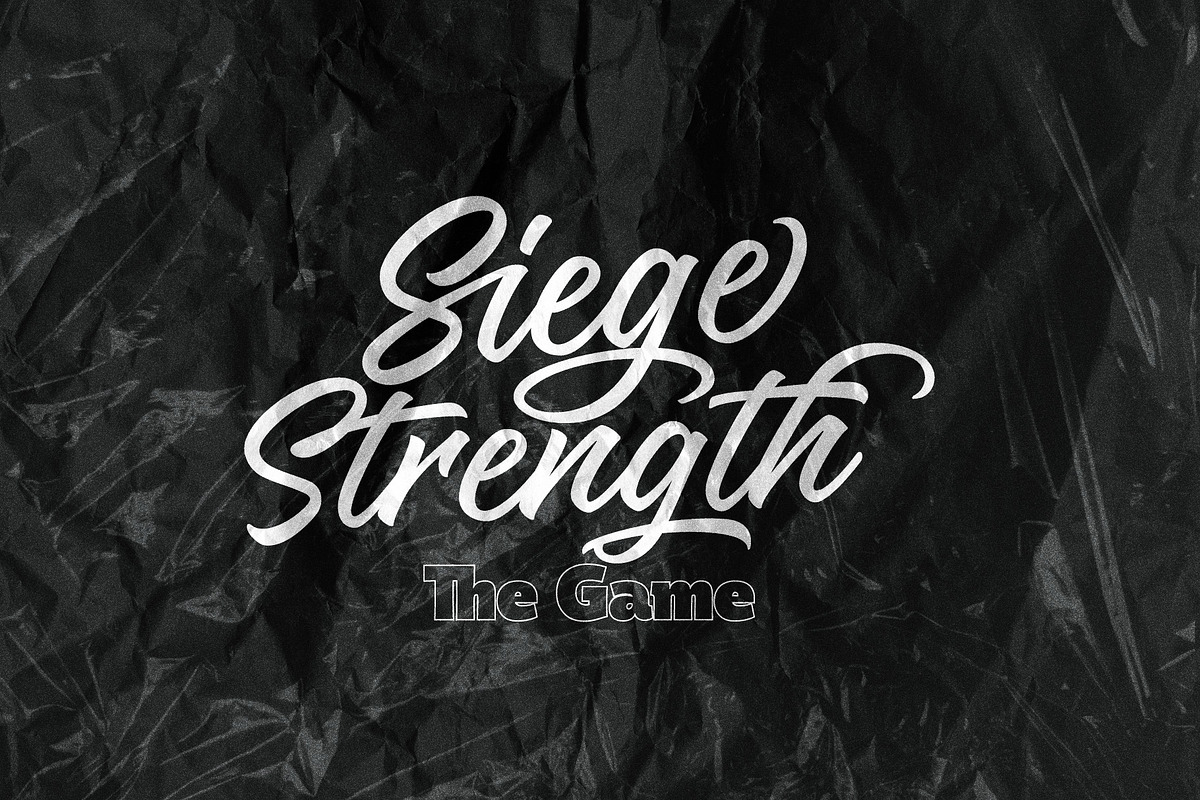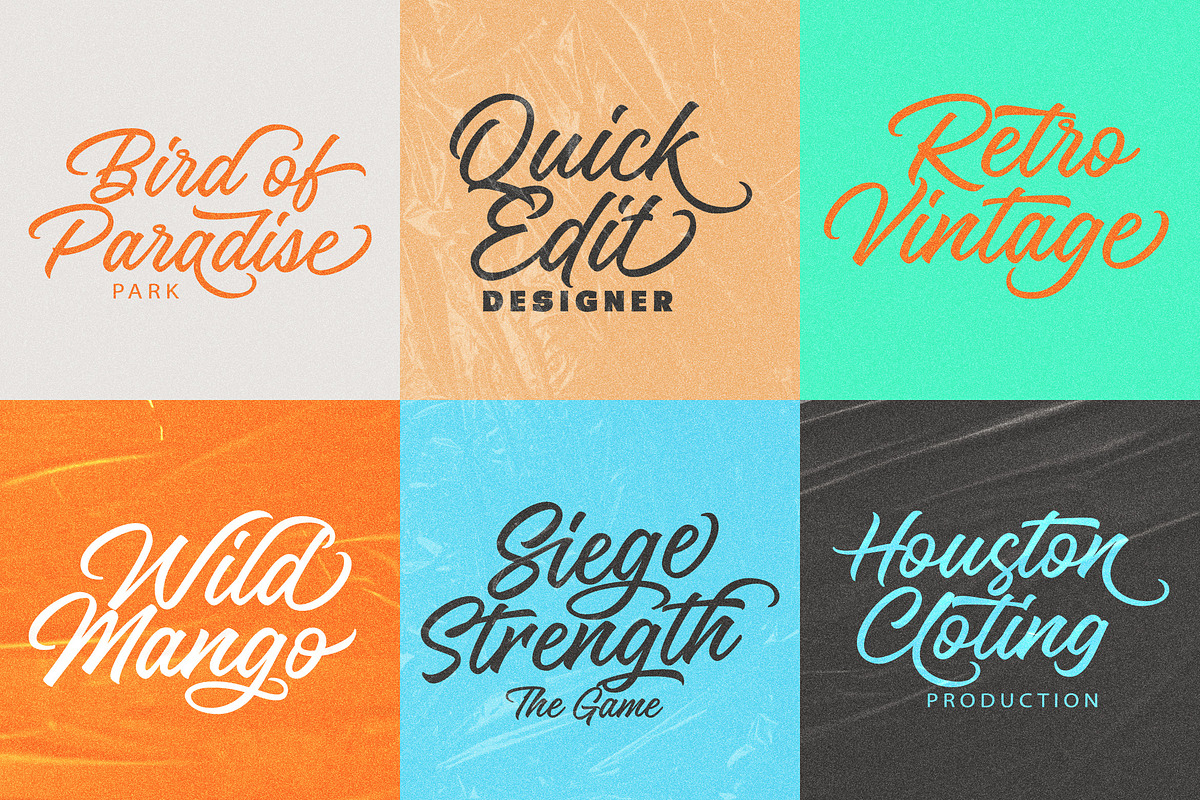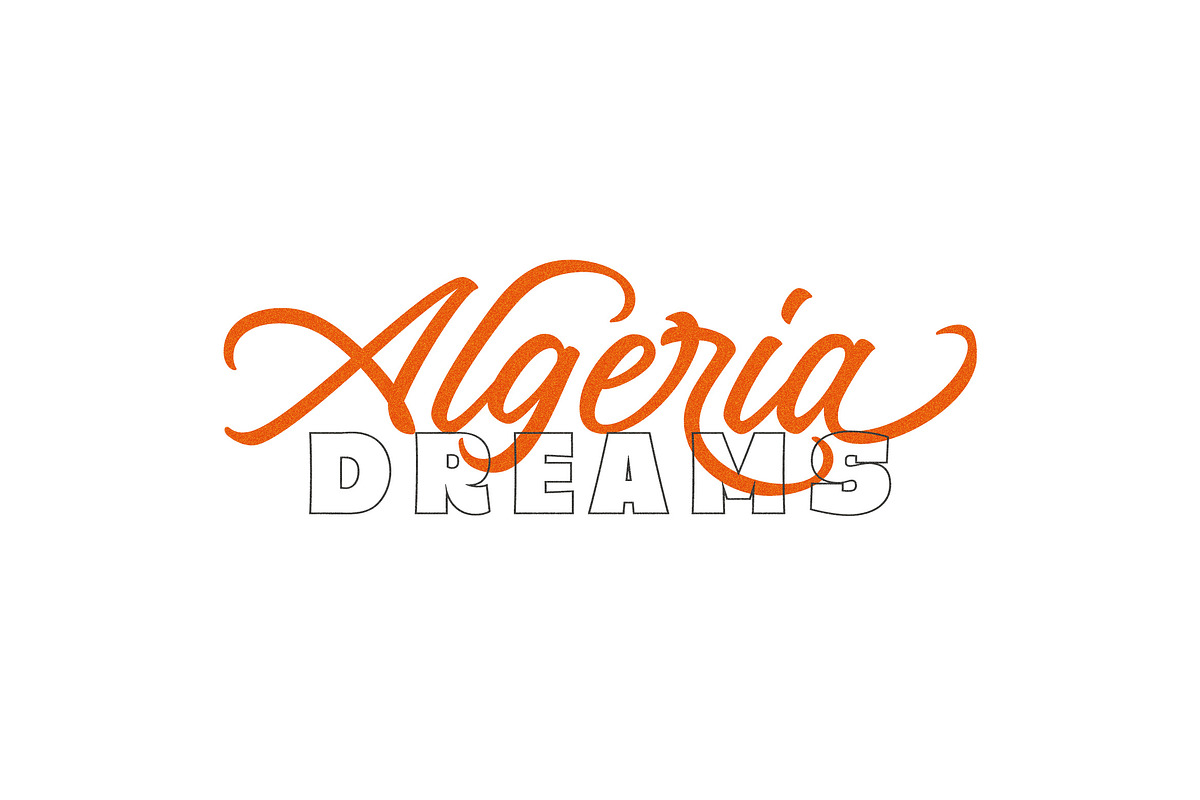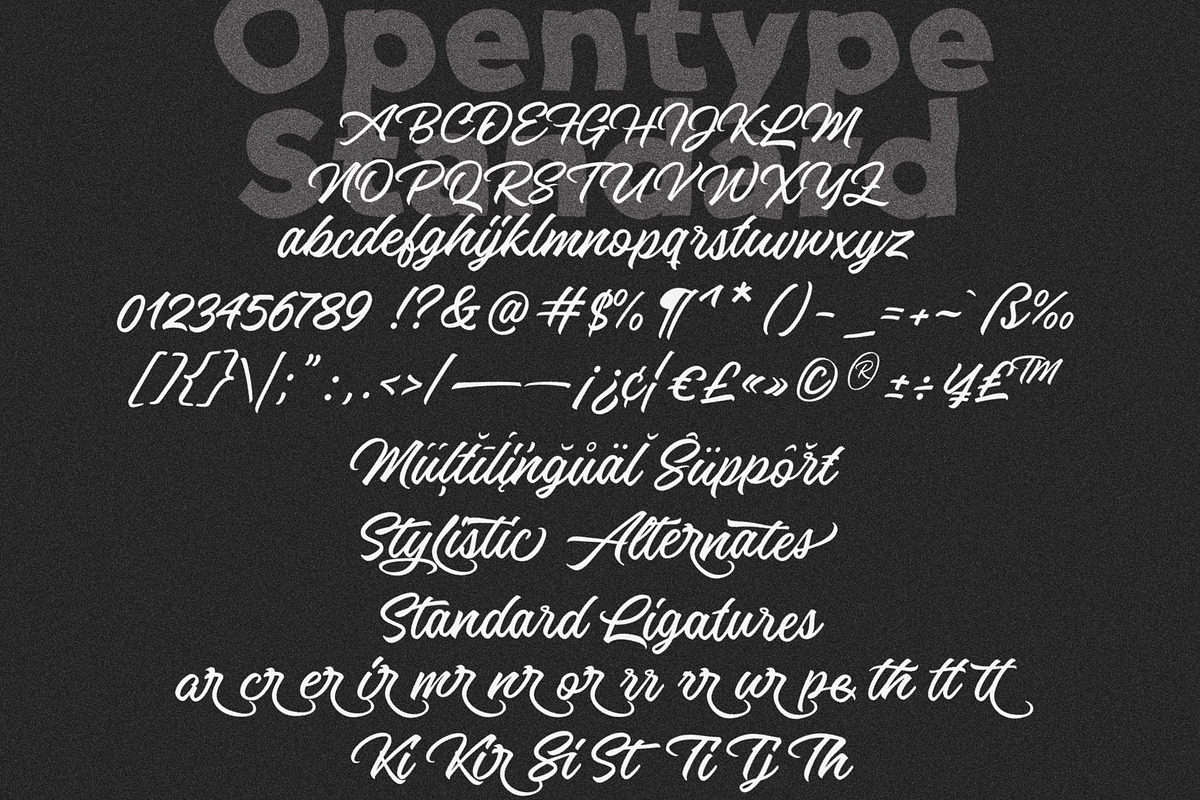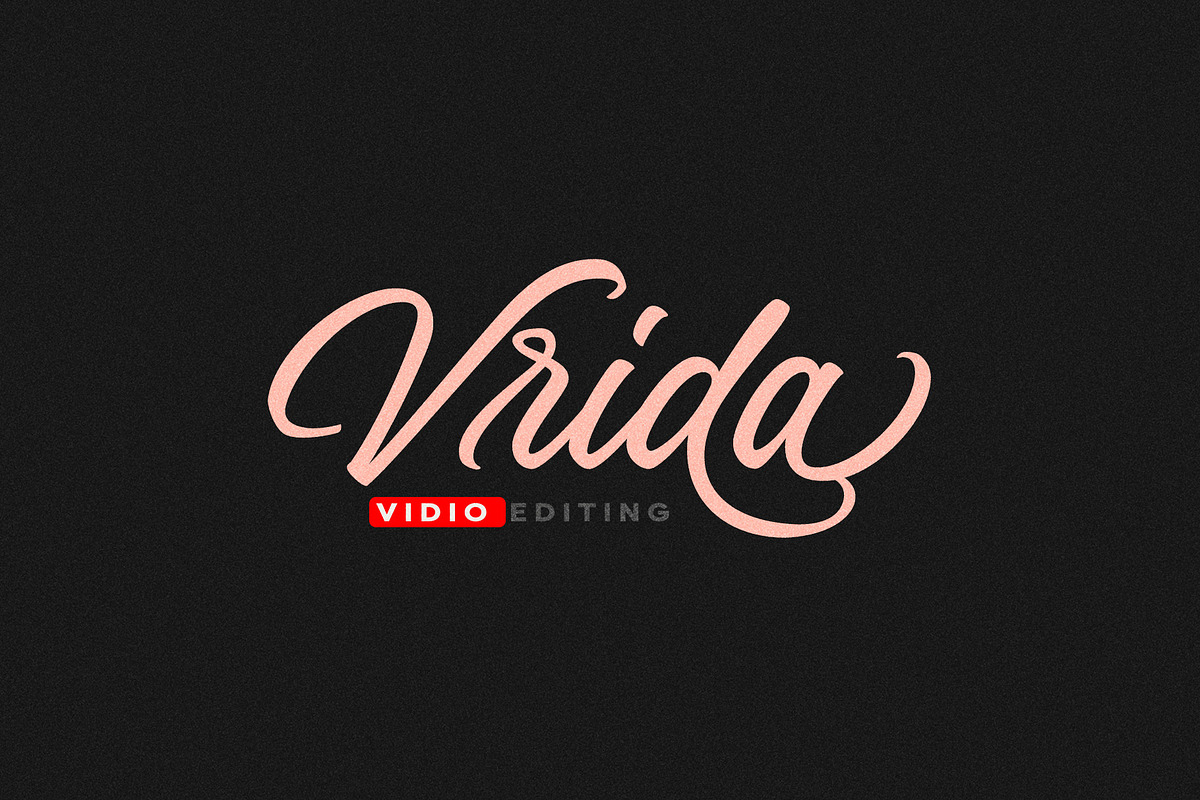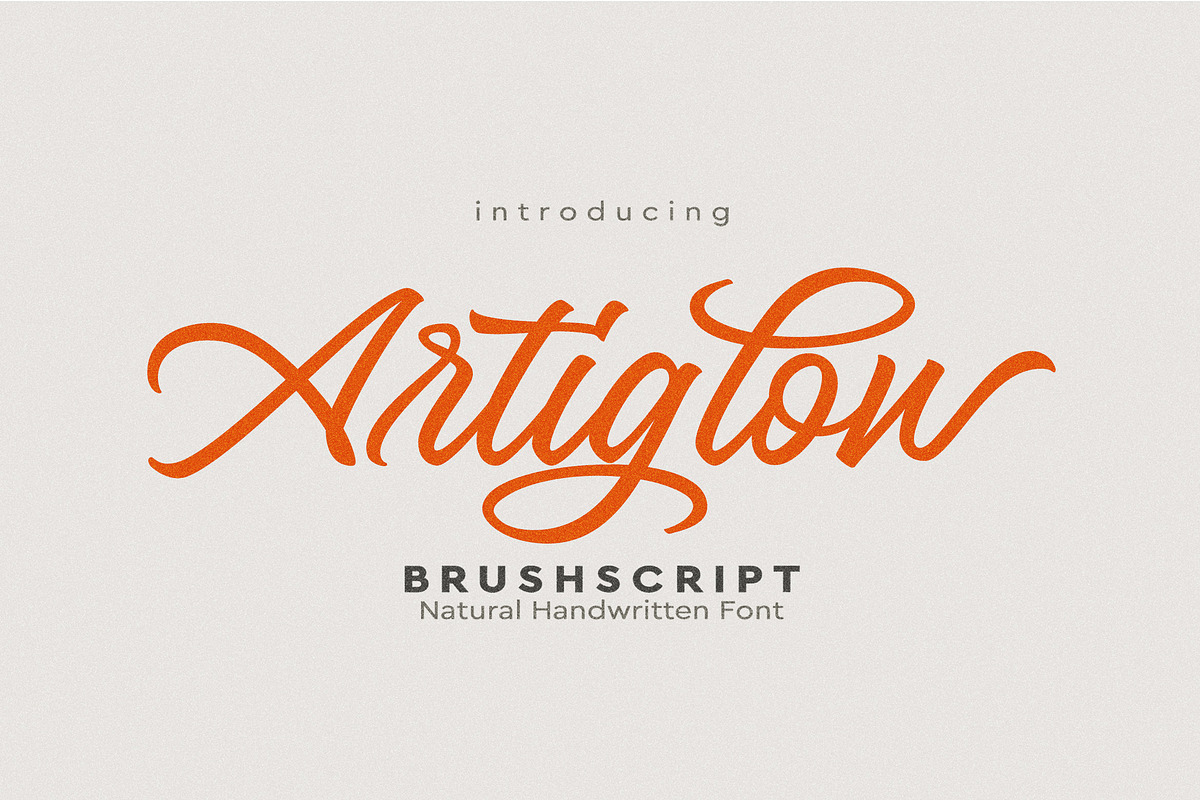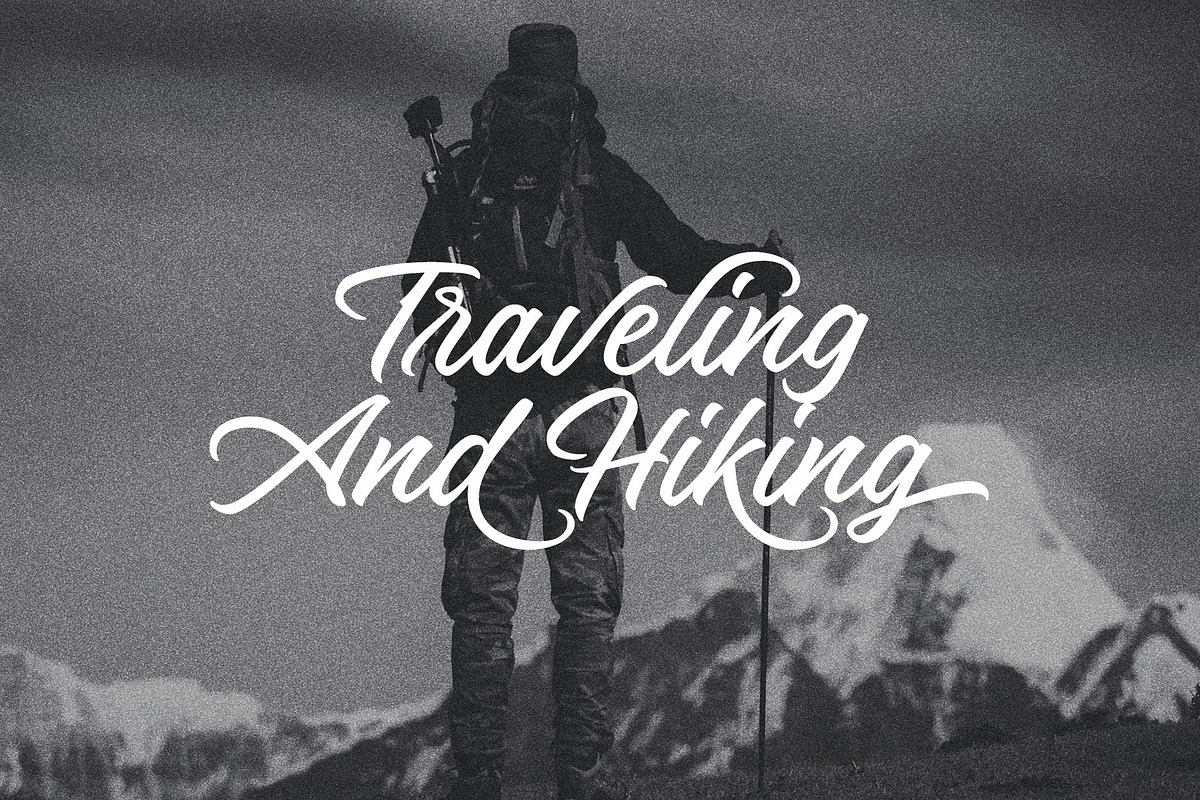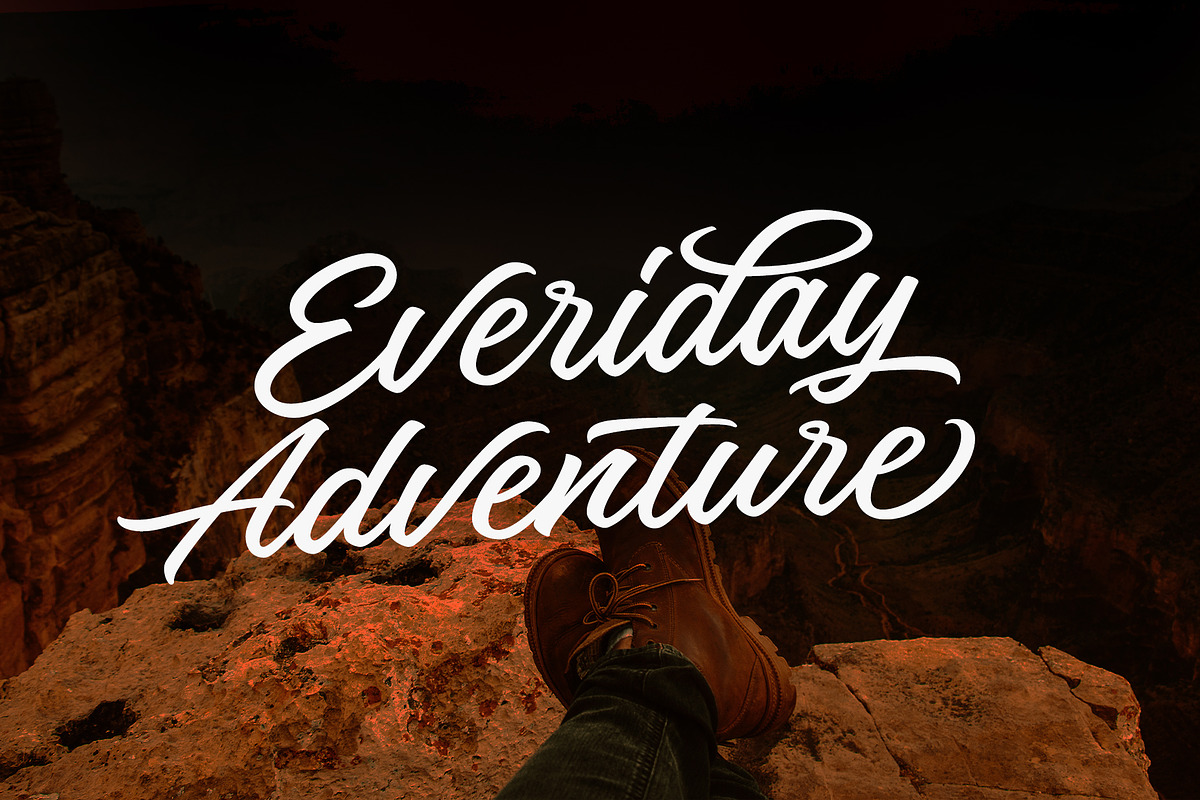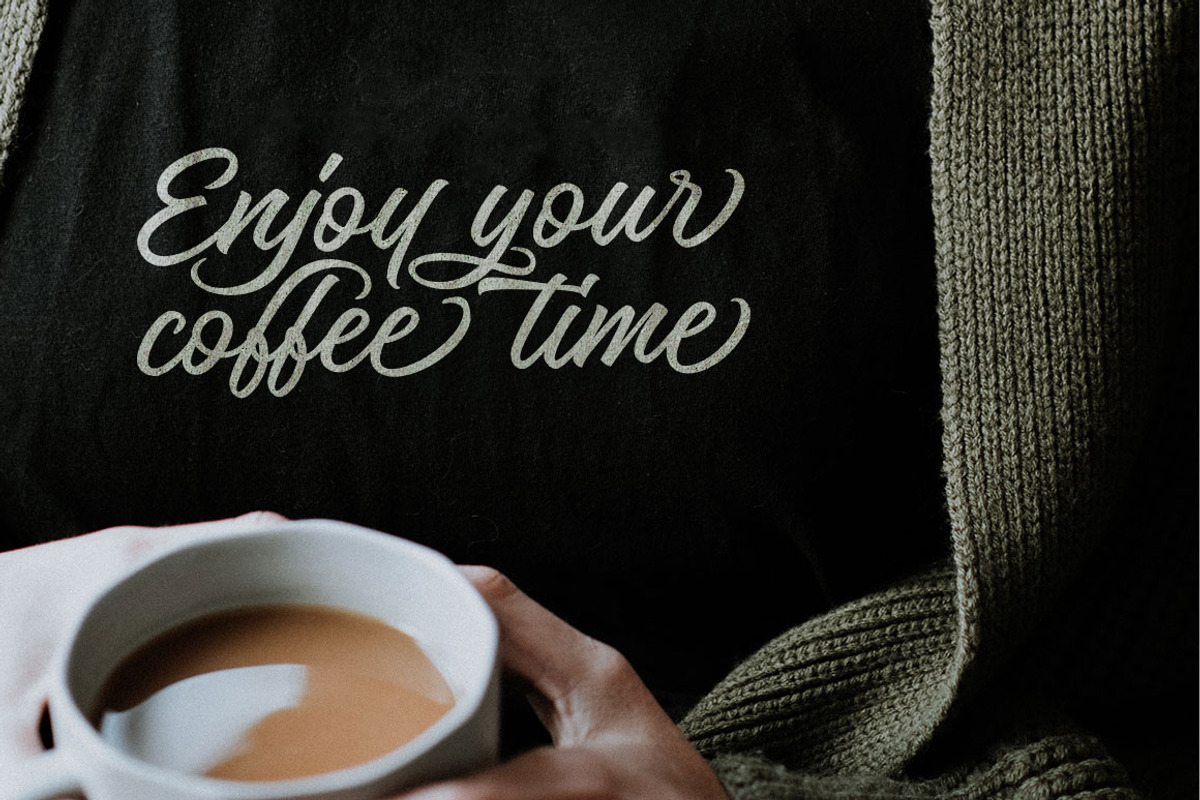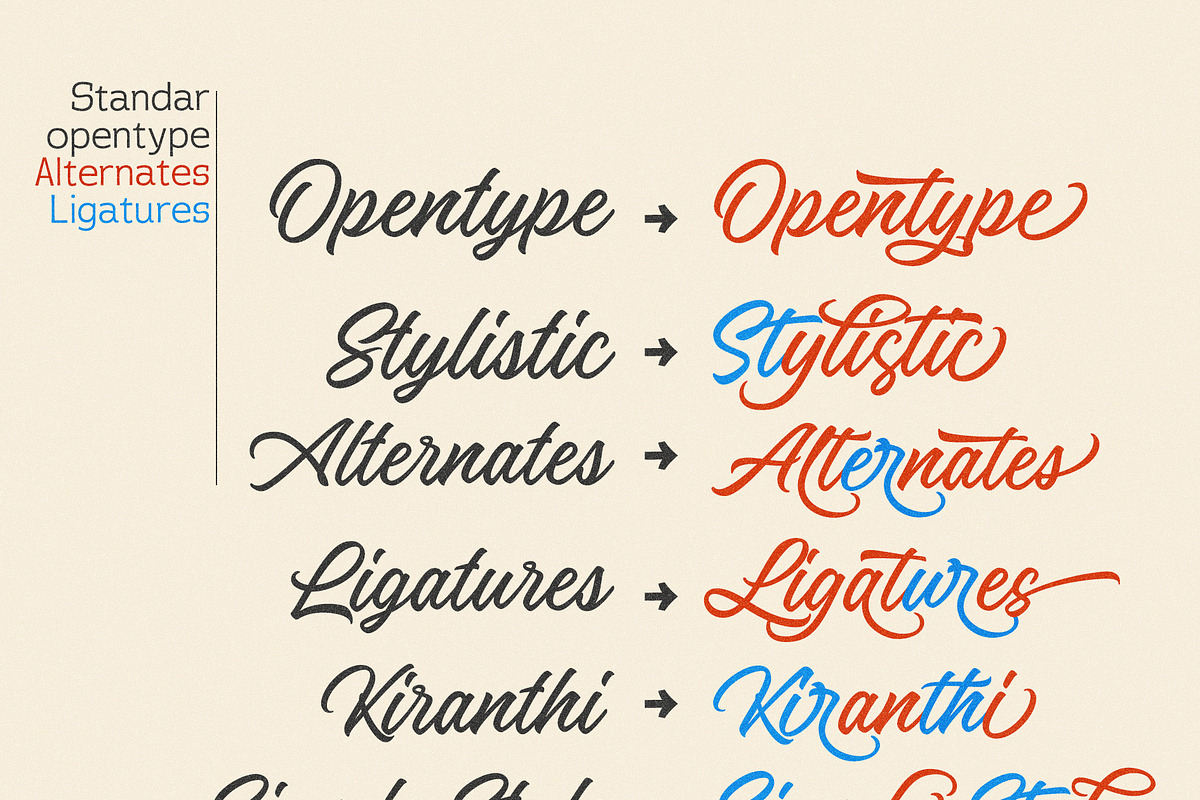
Artiglow Script
Artiglow Script is a brush script from handwritten artistic touch elegant modern the as well as a unique blend of ligatures a letter, so that the authors compose it with a and little swirly embedding, so that a modern font is formed and ready to make a statement by adding elegant and unique flair to your next design project.
Artiglow Script can be used for various purposes such as Magazine Title, Poster, Logo, T-Shirt, Sub Title, Business cards, Trademark, Label, Book Covers, Wedding Invitations,Templates Instagram Story Post, Greeting Cards, Quotes, etc. These letters are embedded into the font file and easily accessible in programs such as photoshop and illustrator. You can access these in more basic design programs but you will need to use your character map or font book.